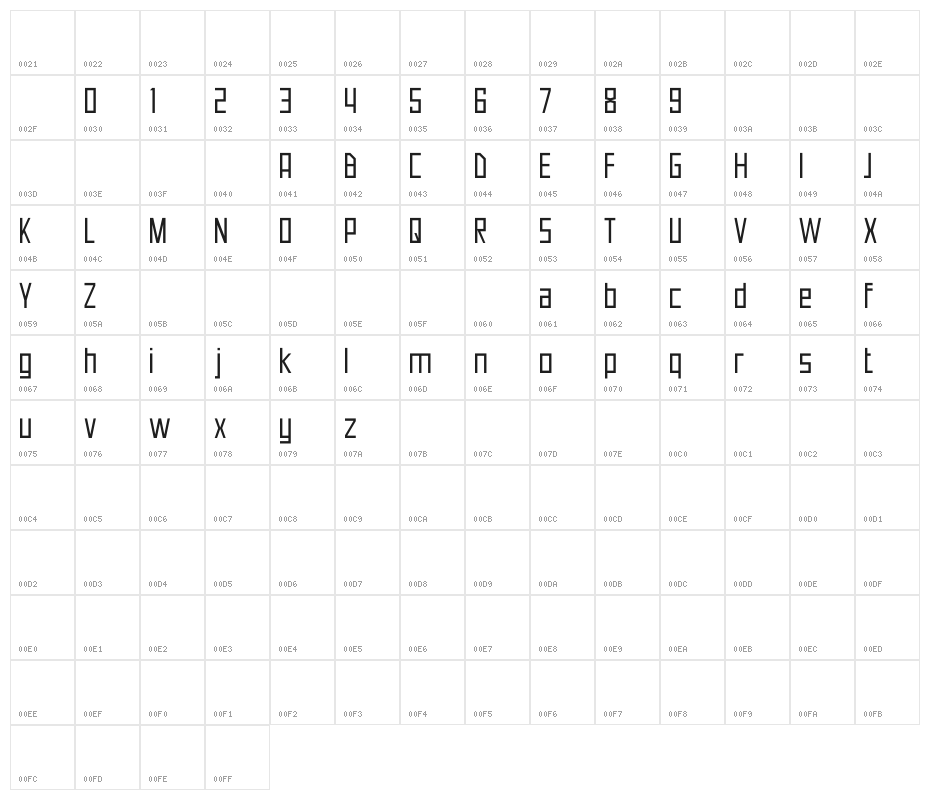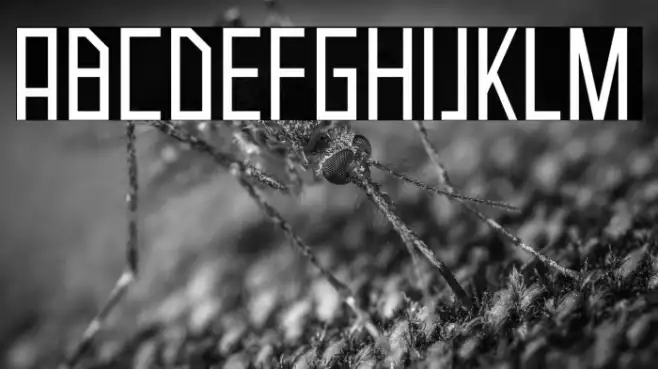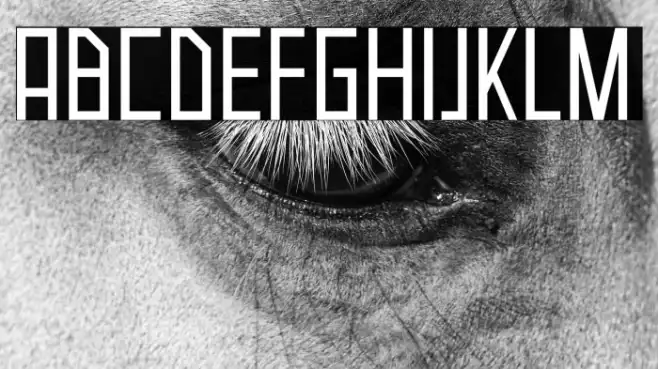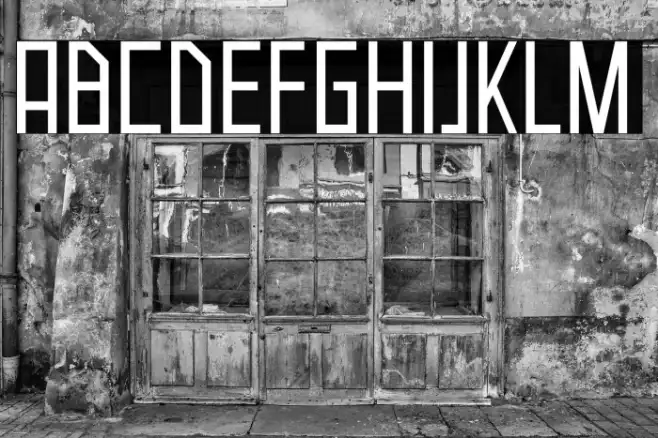
Neuborn Regular Font
Neuborn Regular Description
This font features a geometric and modern design with clean, straight lines and a structured appearance. The characters are uniform in width, giving it a monospaced feel, although it is not strictly monospaced. The uppercase letters are bold and impactful, while the lowercase letters maintain a consistent style with slightly softer edges. The numerals are clear and distinct, matching the overall aesthetic of the font. The special characters are integrated seamlessly, maintaining the geometric theme. This font is highly legible and versatile, suitable for a variety of design applications.
| Use Case | Headlines, Logos, Digital Interfaces |
| Proposed Projects | Ideal for tech branding, modern web design, posters, and digital interfaces. |